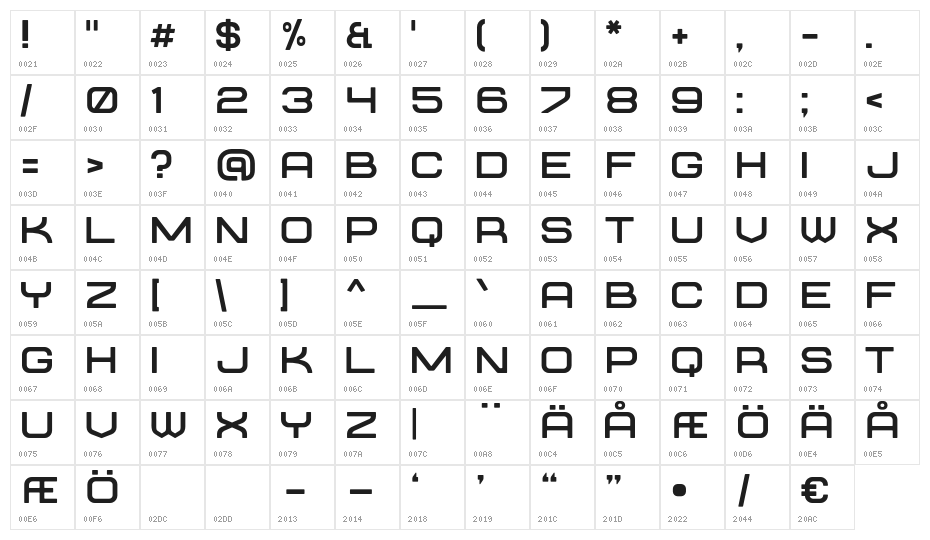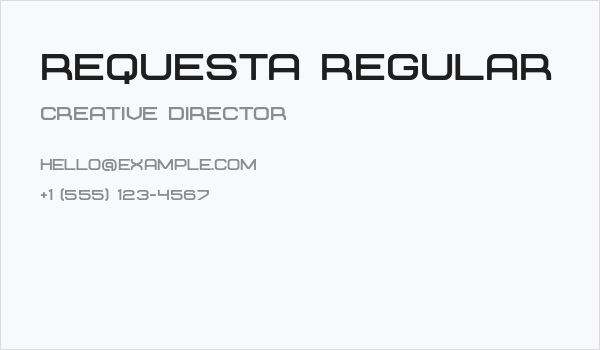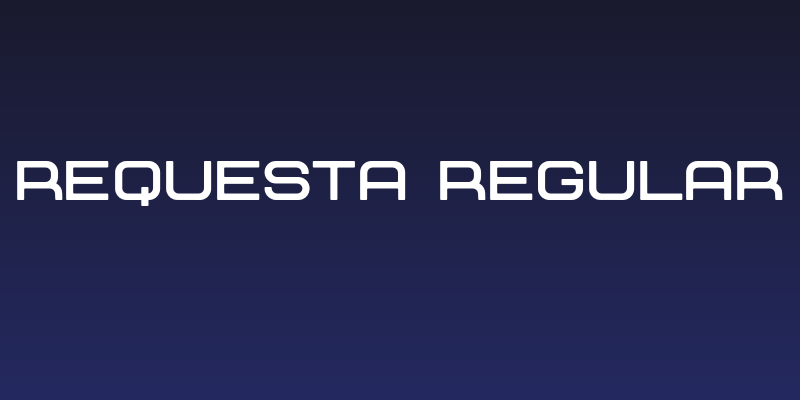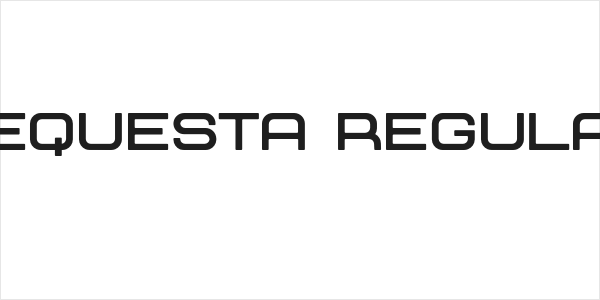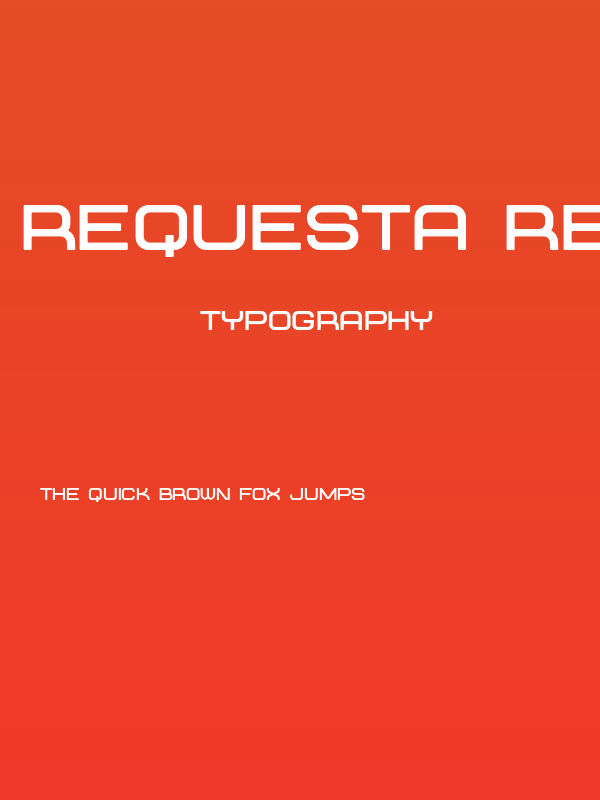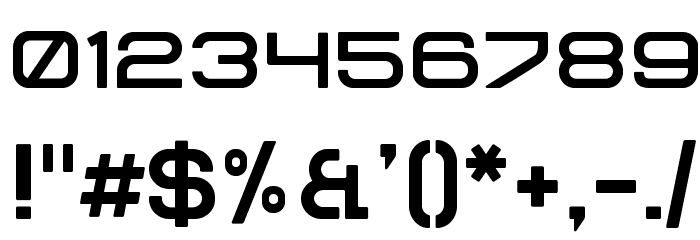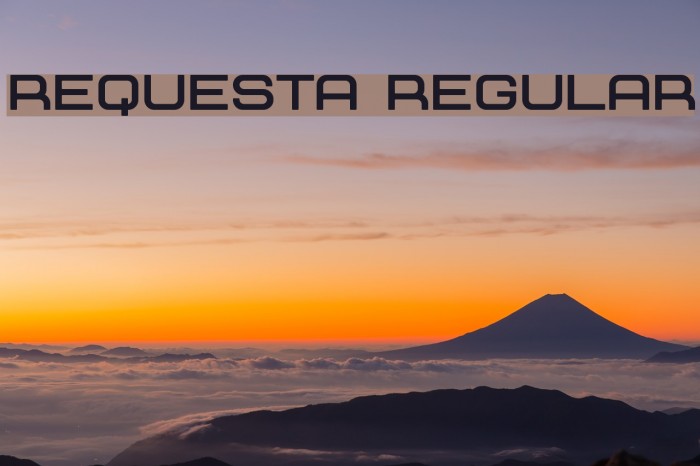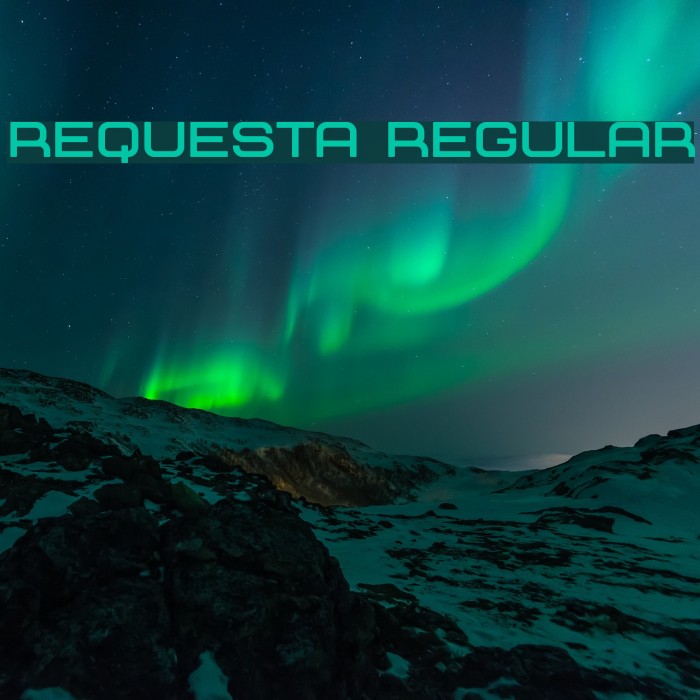
Requesta Regular Font
Requesta Regular Description
This font features a modern, geometric design with clean lines and a structured appearance. The characters are uniform in width, giving it a monospaced feel, though it is not strictly monospaced. The uppercase and lowercase letters maintain a consistent height, contributing to its orderly aesthetic. The numerals and special characters are designed to match the overall style, with a focus on readability and balance. The font's simplicity and clarity make it suitable for a variety of applications, from digital interfaces to print media.
| Proposed Projects | Ideal for tech branding, digital interfaces, signage, and modern print media. |